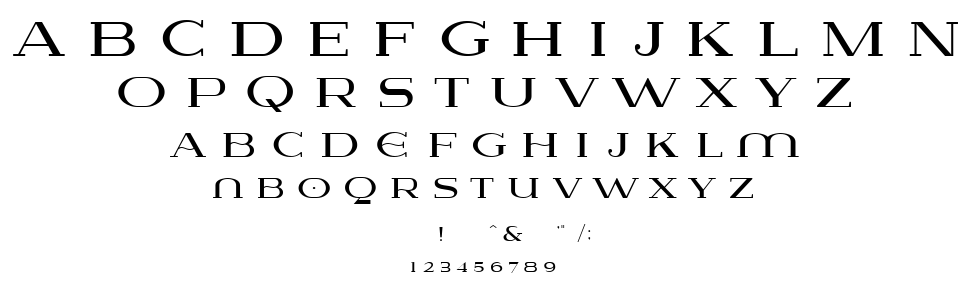
Lausanne font is something I have been working in the past year. It character borrows from classic Didot examples with a hint of Copperplate and my main idea here was sparkled by these high contrast logotypes of famous luxury brands like Prada or Louis Vuitton. I followed the established rules, but also allowed myself some quirkiness that (I hope) add bit of a playful voice of the typeface.